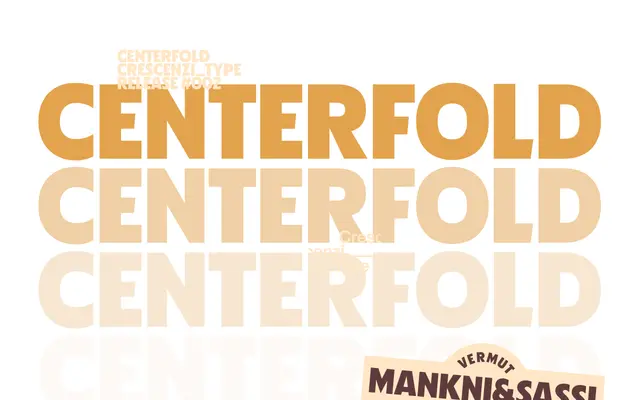
Centerfold
A single-weight bold display sans by Darrin Crescenzi drawing on 1970s film posters, adult magazine mastheads and classic American print advertising.
Structurally indebted to Rudolph Koch's Kabel Black, it pairs heavy strokes and sultry curves with pointed terminals, smoothing some of Kabel's rougher edges while adding contemporary quirks. Stylistic alternates extend its range, and the design works equally well in title case or all-caps. A period pastiche that wears its Americana references openly rather than hiding them.
A heavy display sans with pointed terminals and geometric underpinnings, referencing Kabel Black and 1970s print vernacular. Its single bold weight and decorative character place it firmly in the display category rather than a general-use grotesque or geometric sans.